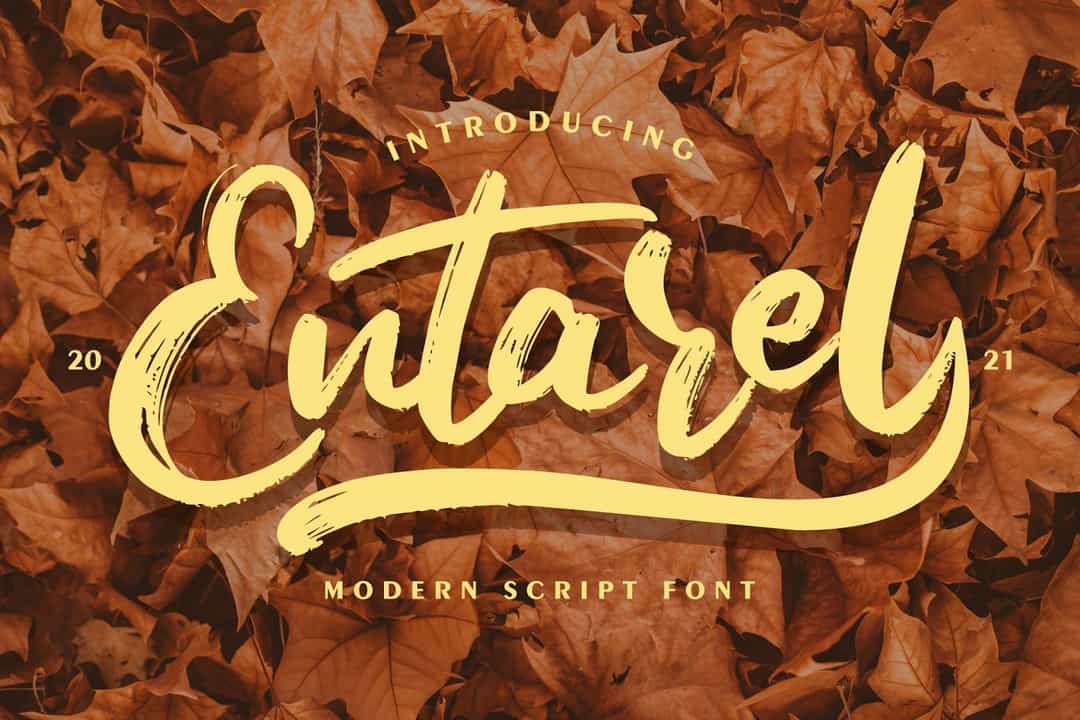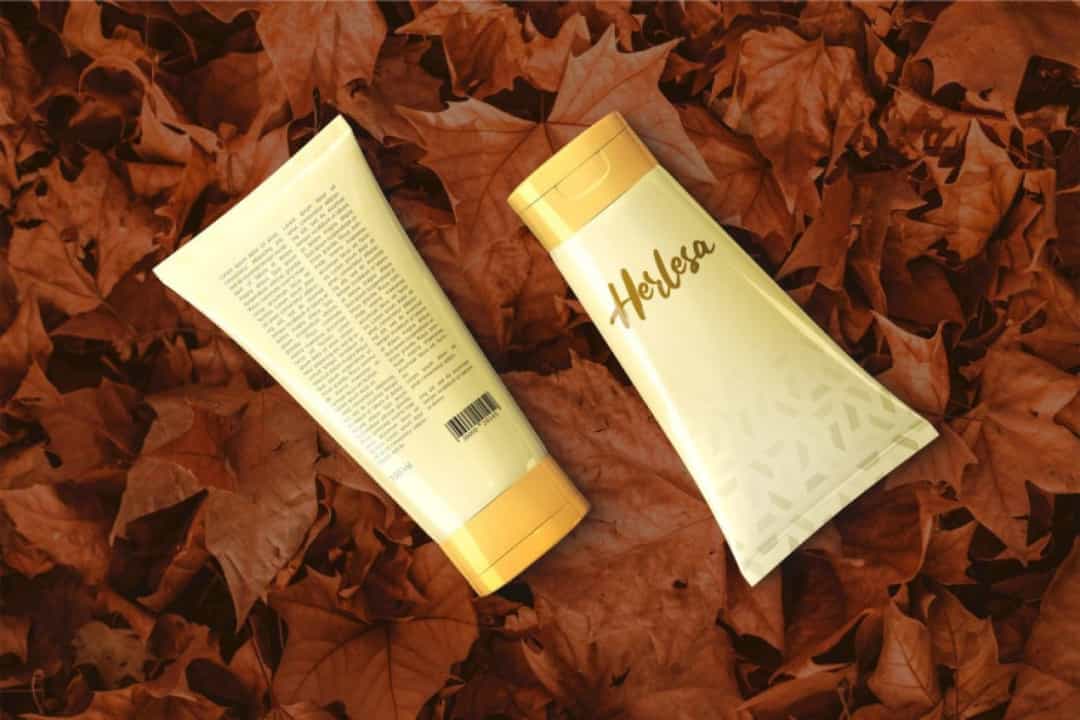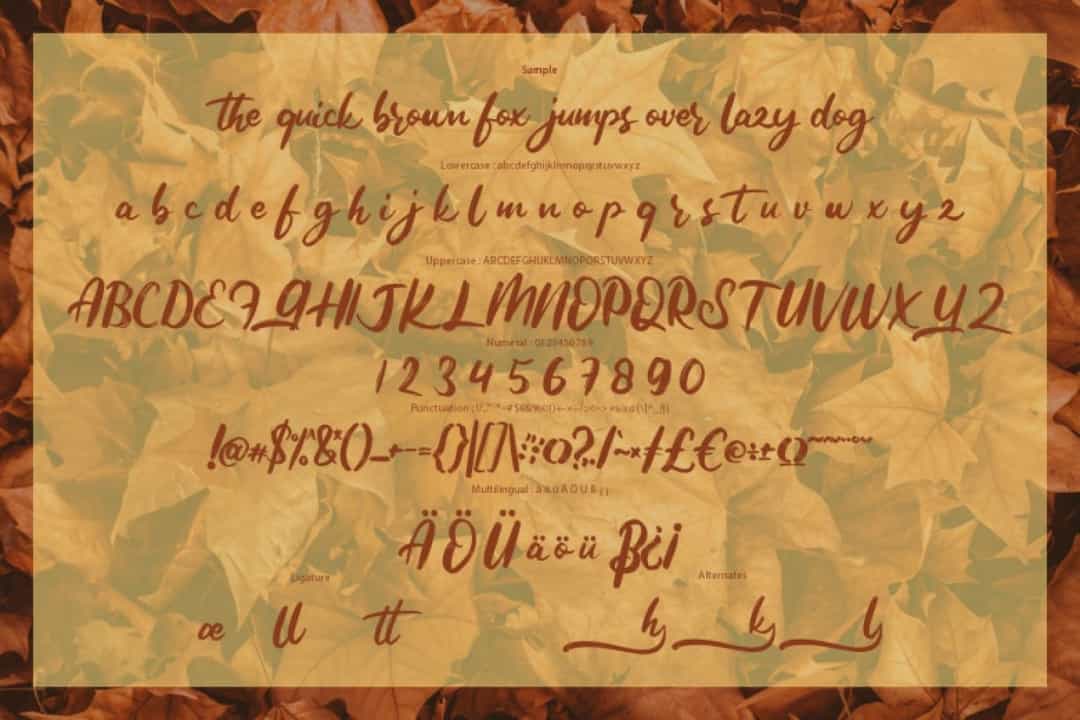
Entarel can be described as an elegant and beautiful brush-script font. Distinguished by its soft curves, Entarel makes for ideal editorial or fashion designs. Let Entarel help elevate your designs to new heights!